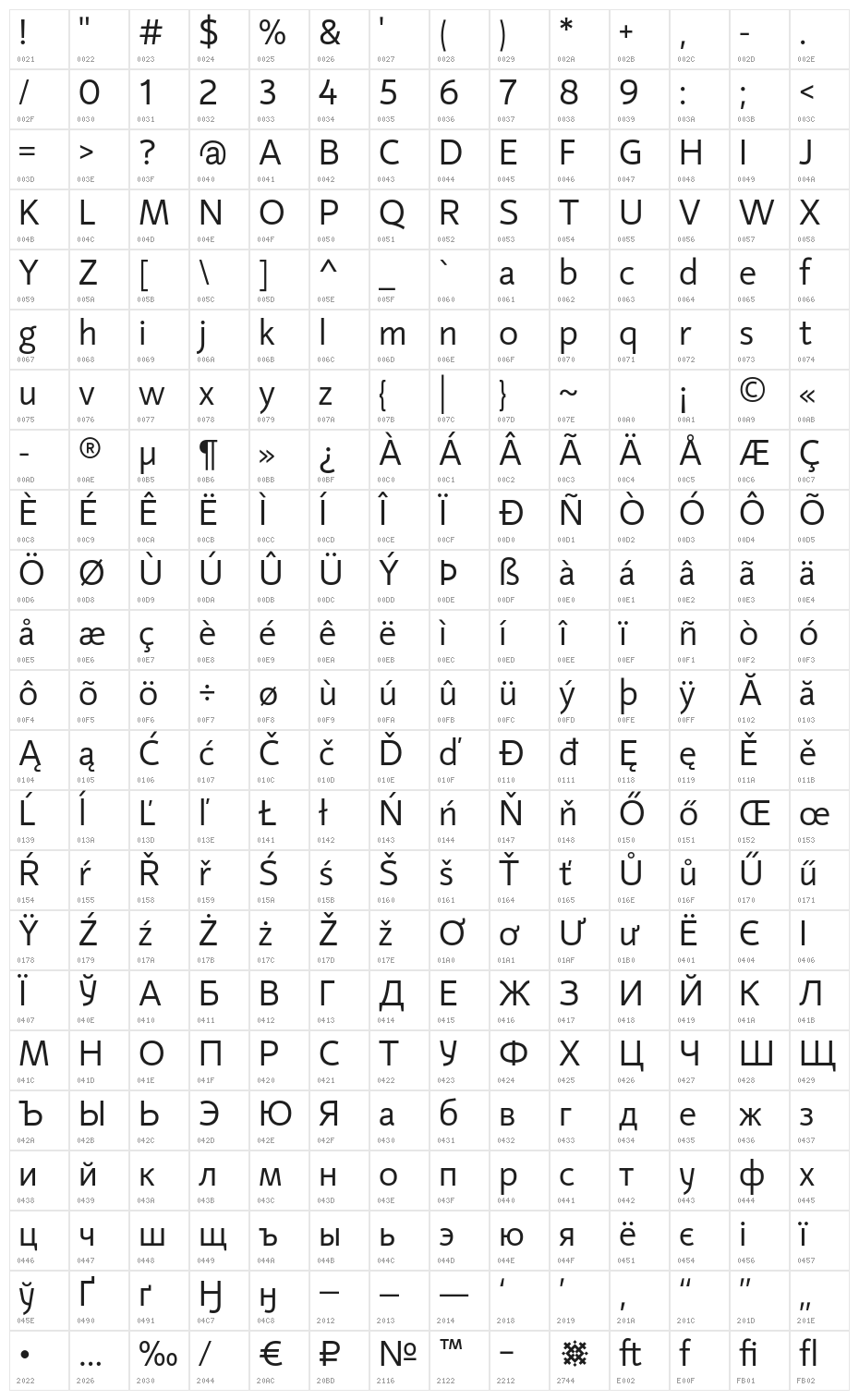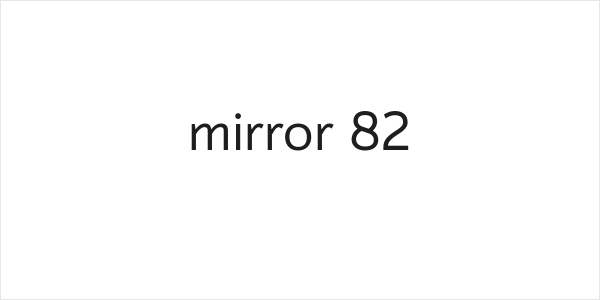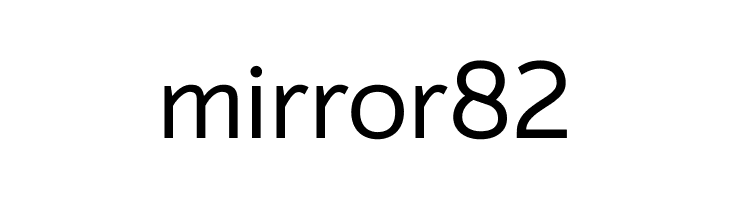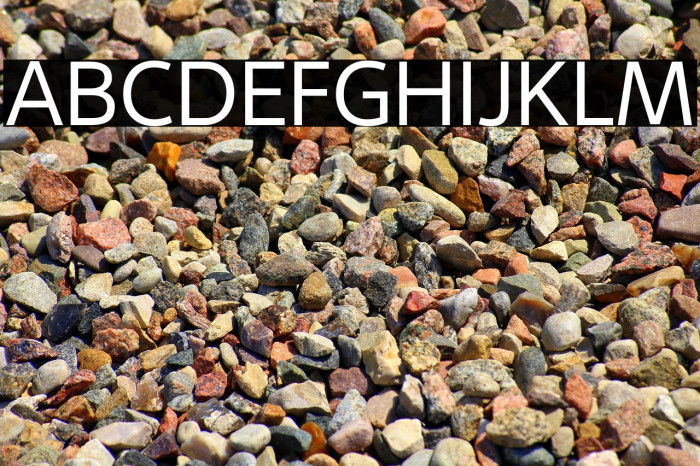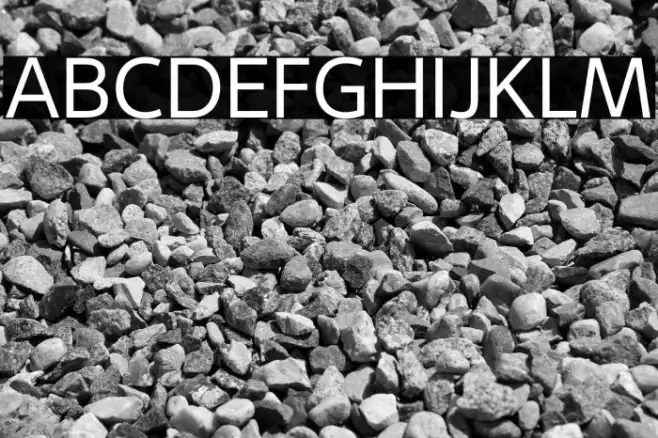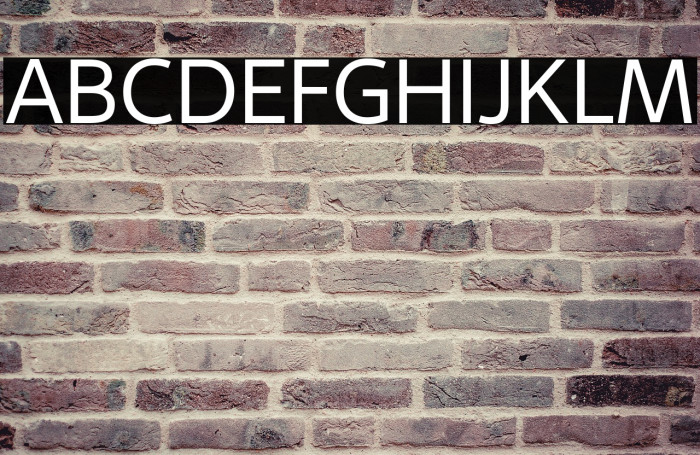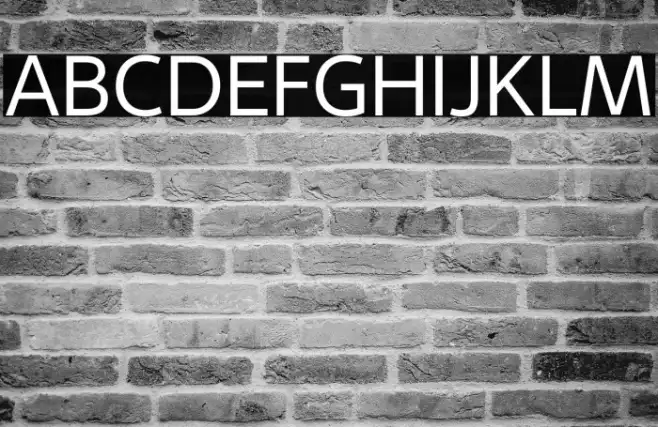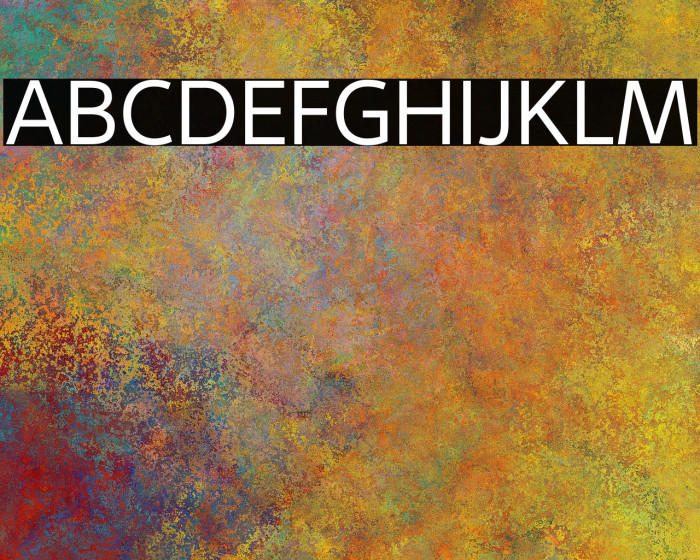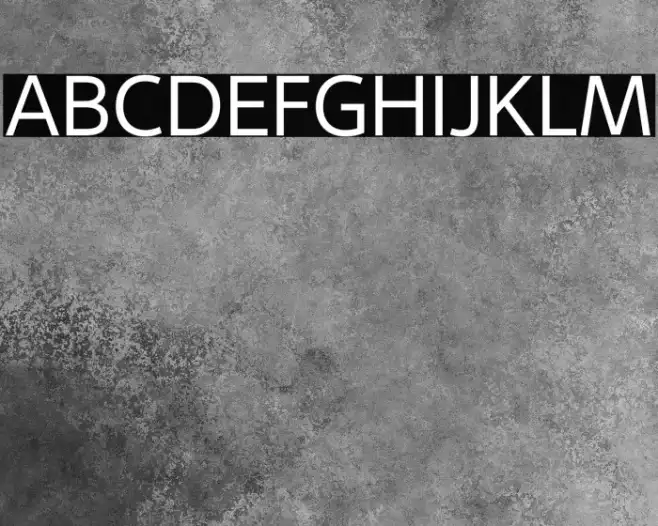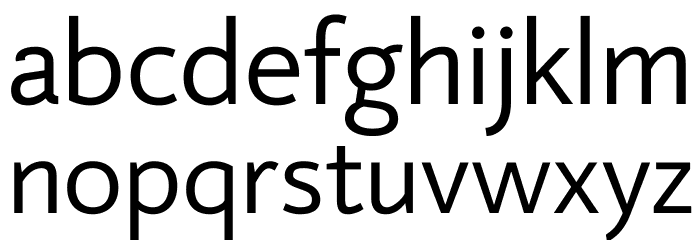
mirror 82 Font
mirror 82 Description
This font features a clean and modern sans-serif style, characterized by its simplicity and readability. The uppercase letters are uniform in height, with a slight geometric influence, giving them a balanced and contemporary appearance. The lowercase letters maintain a consistent x-height, contributing to the font's legibility. The numerals are straightforward and align well with the overall design, ensuring clarity in numerical data presentation. Special characters are well-integrated, maintaining the font's cohesive look. The strokes are even, with minimal contrast, emphasizing a sleek and professional aesthetic suitable for various applications.
| Proposed Projects | Ideal for corporate branding, web design, user interfaces, and editorial layouts. |